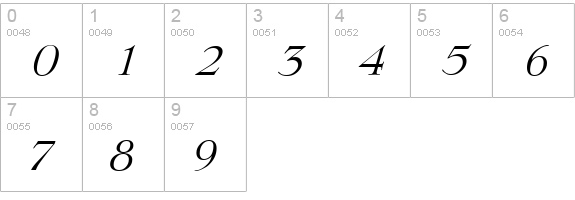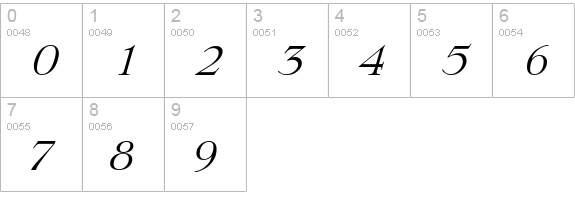
LingwoodSerial-Light-Italic is a refined, elegant, italic variant in the LingwoodSerial typeface family \xE2\x80\x94 well suited to elegant body text, refined sub-headings, and luxury branding.
LingwoodSerial-Light-Italic font is a sleek and elegant typeface that exudes sophistication and modernity. With its delicate curves and graceful strokes, this font is perfect for adding a touch of refinement to your designs. The italic style adds a sense of movement and fluidity, making it ideal for conveying a sense of dynamism and energy. What sets LingwoodSerial-Light-Italic font apart is not just its aesthetic appeal, but also the fact that it is available for free download at FontsMarket.com. This means that you can easily access this beautiful font without any cost, making it a valuable addition to your collection of design resources. Whether you're working on a branding project, a website design, or any other creative endeavor, LingwoodSerial-Light-Italic font is sure to elevate your work with its timeless elegance and versatility.